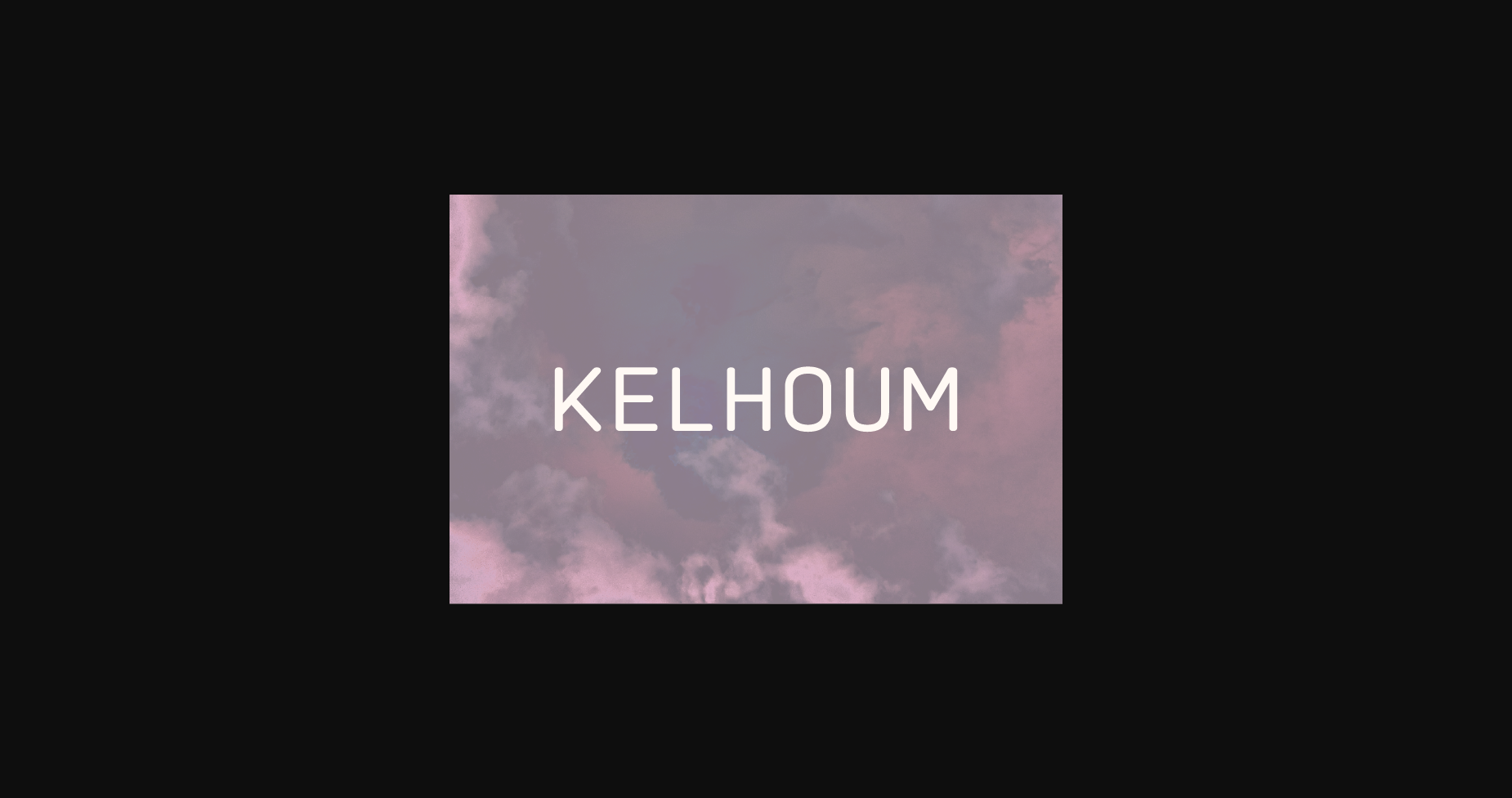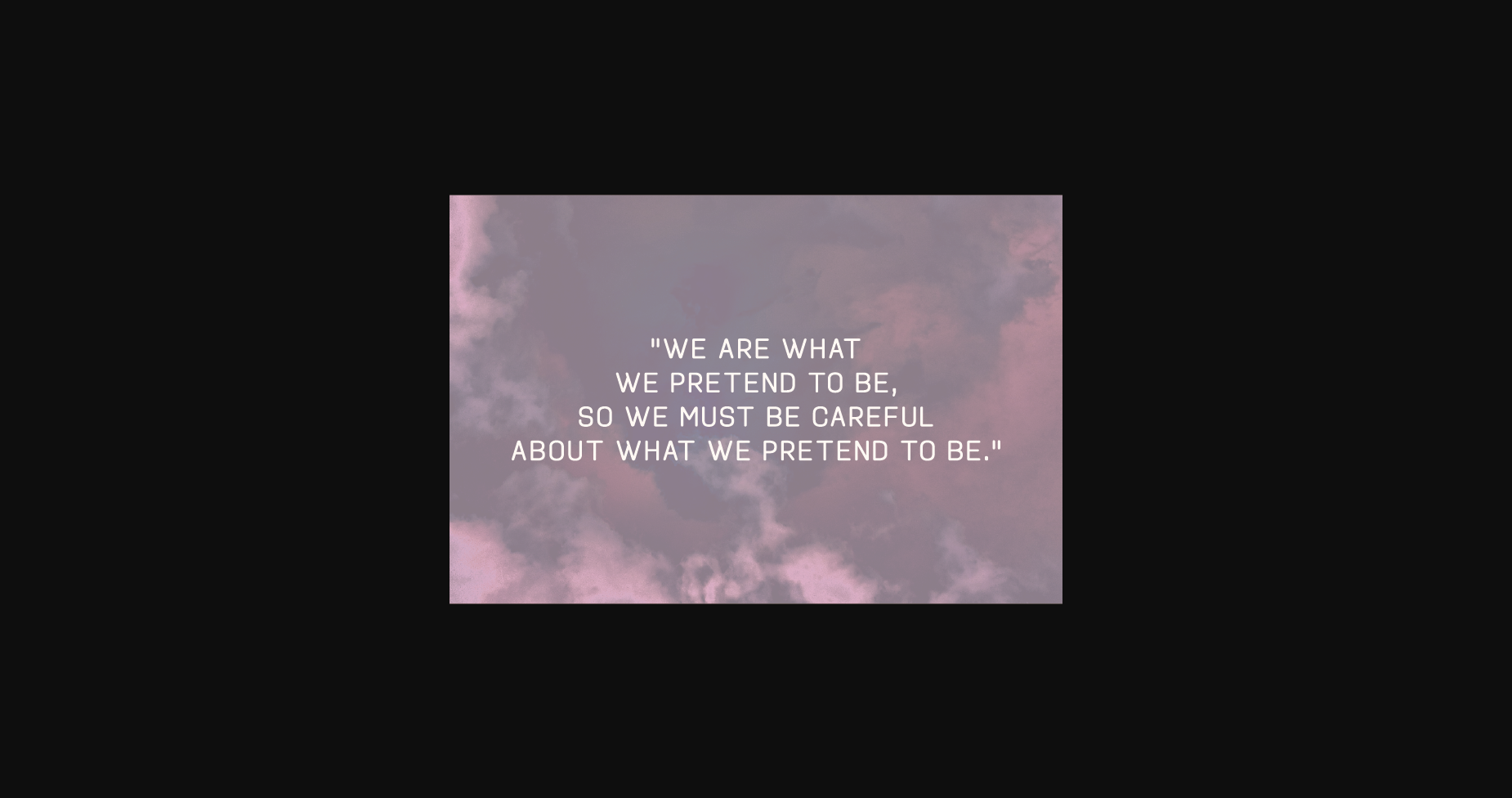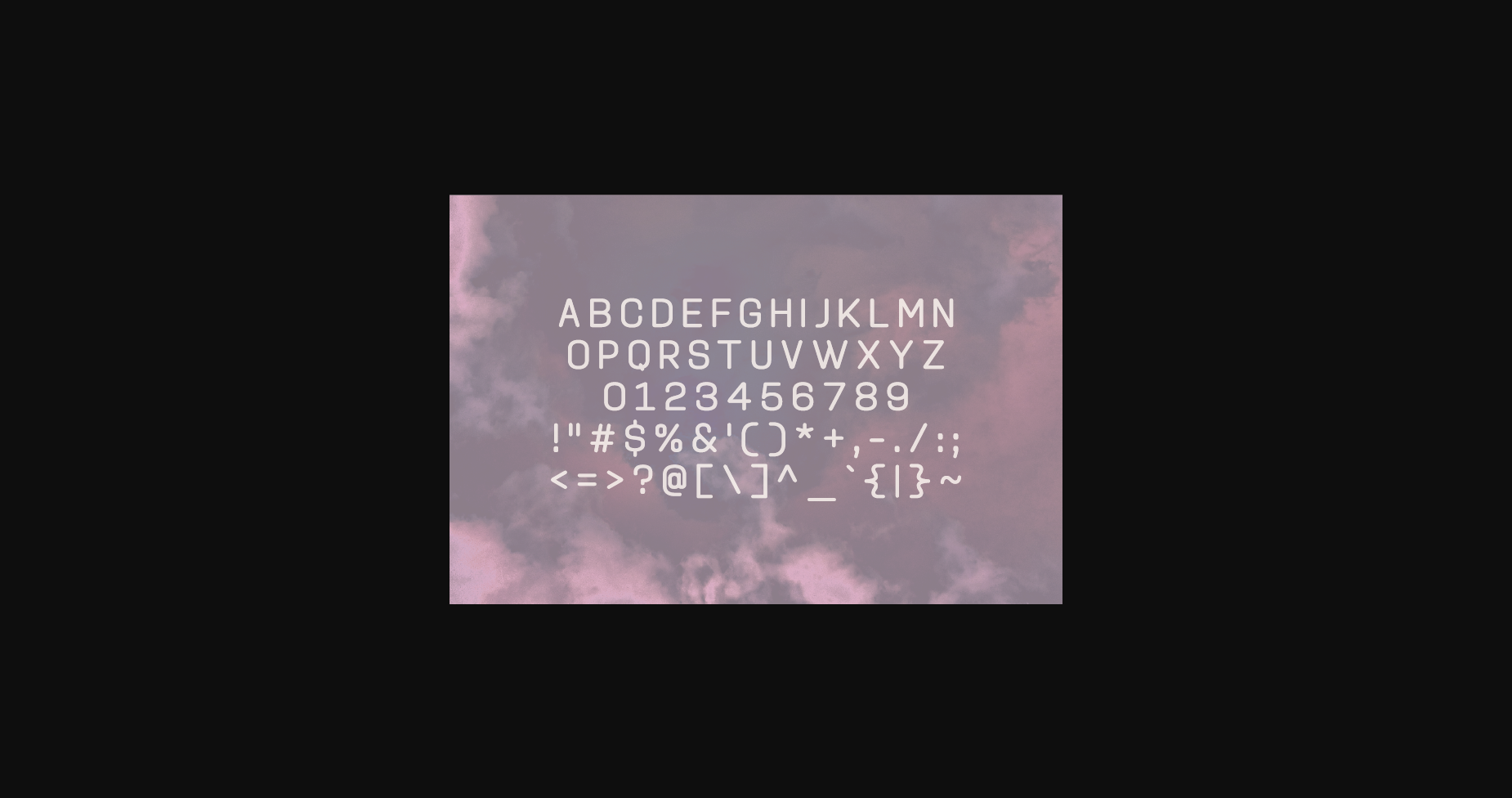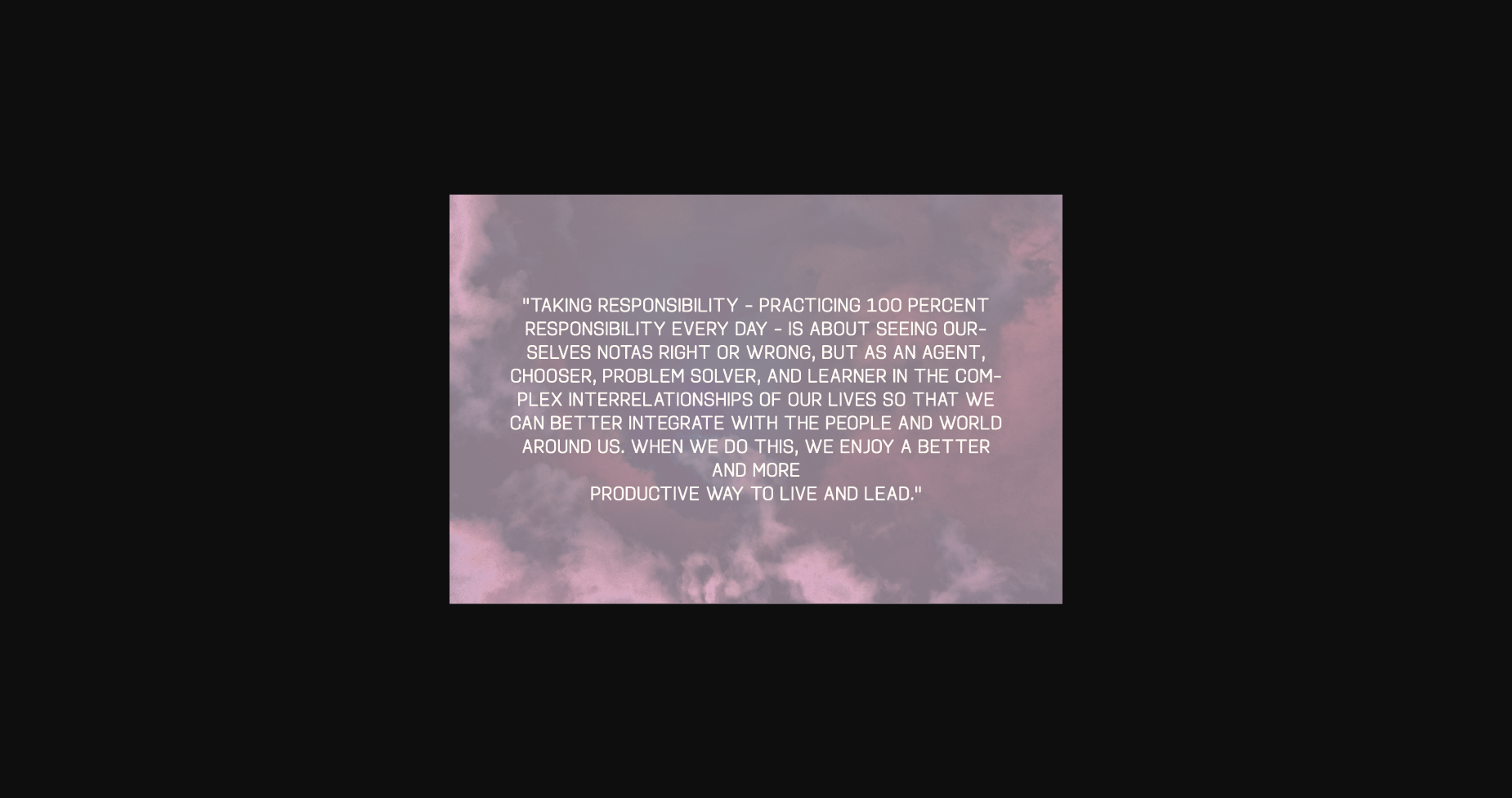
About Kelhoum Font
Kelhoum is a minimal and neat sans serif font. It can easily be matched to an incredibly large set of projects, so add it to your creative ideas and notice how it makes them stand out!